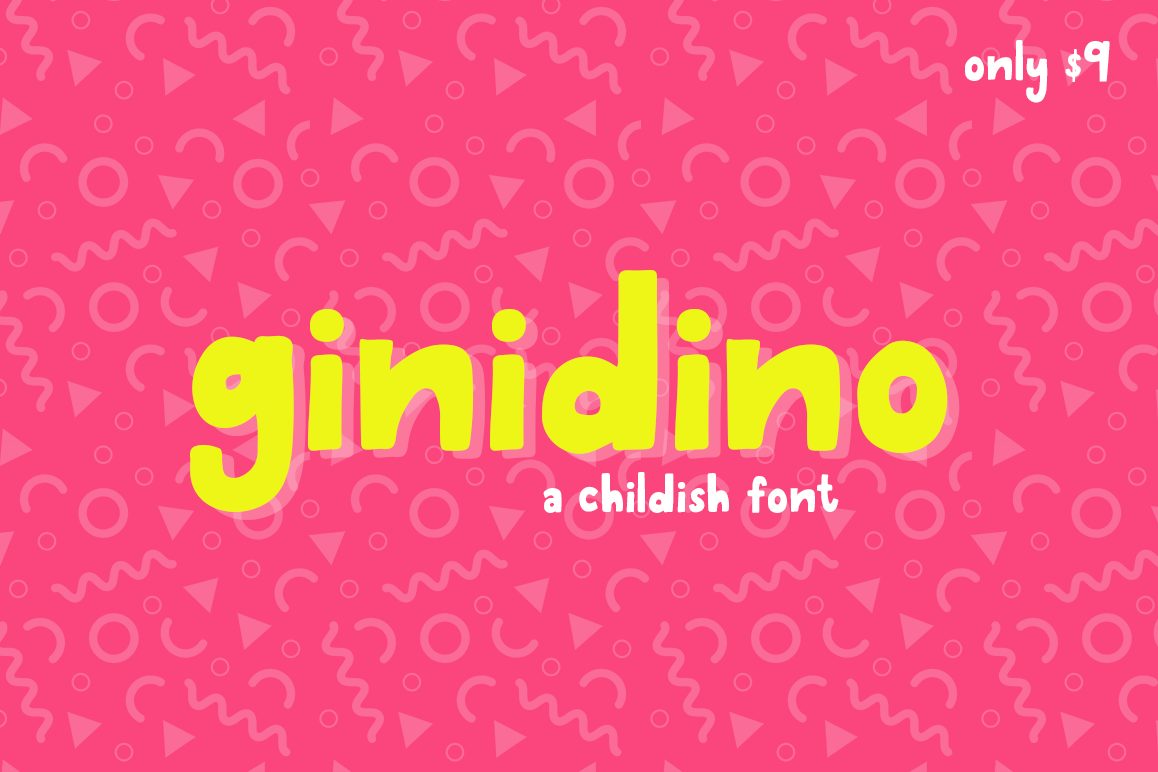
Introducing the Ginidino font a super fun, quirky and child theme typeface, perfect for those child related projects.This super cute font set is available for only $9! 100% accessible to all, without the requirement for additional design softwareWhats Included: